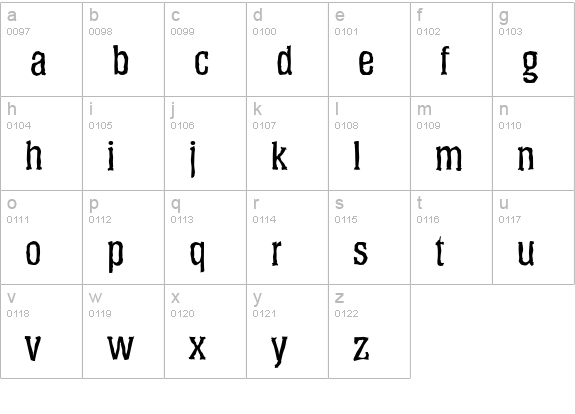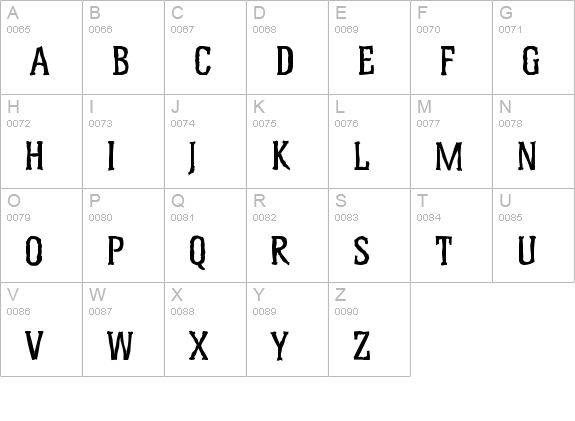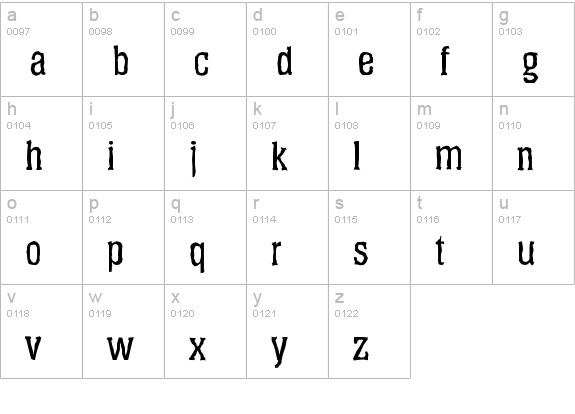
HeliumAntique-Medium-Regular is a balanced, medium-weight variant in the HeliumAntique typeface family \xE2\x80\x94 well suited to sub-headlines, navigation, and balanced editorial work.
HeliumAntique-Medium-Regular is a timeless and elegant font that exudes sophistication and class. With its graceful curves and balanced letterforms, this font is perfect for adding a touch of refinement to any design project. Whether you're creating invitations, branding materials, or editorial layouts, HeliumAntique-Medium-Regular will bring a touch of old-world charm to your work. And the best part? HeliumAntique-Medium-Regular is available for free download at FontsMarket.com! With just a few clicks, you can add this exquisite font to your collection and start using it in your projects right away. Don't miss out on the opportunity to elevate your designs with the beauty of HeliumAntique-Medium-Regular – download it today and let your creativity soar.